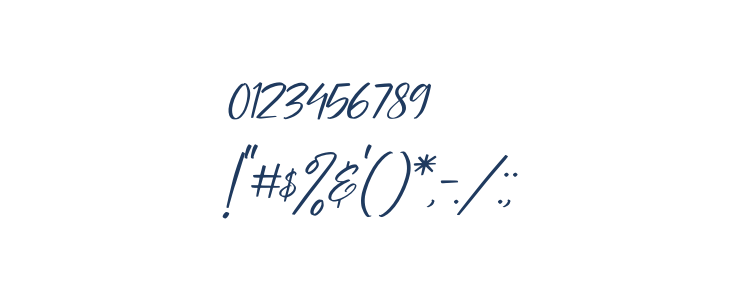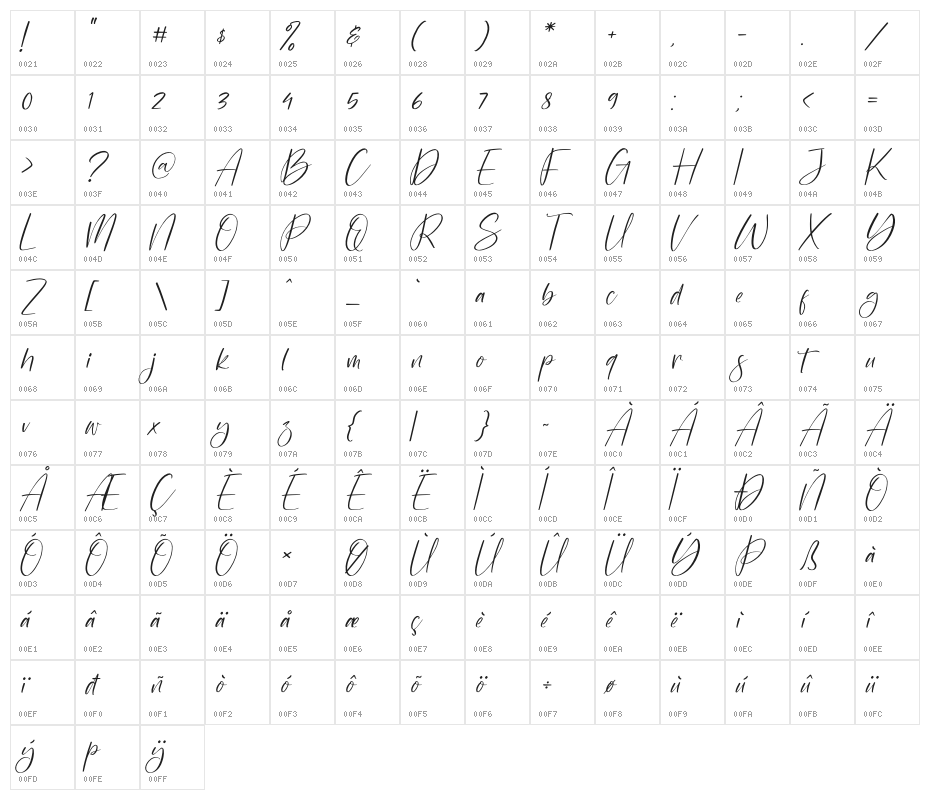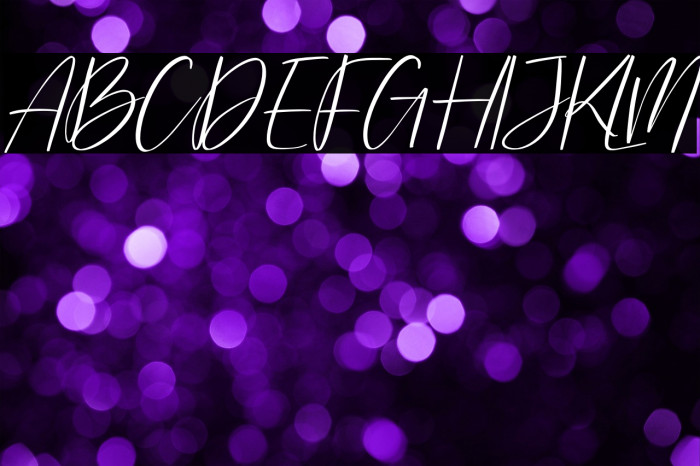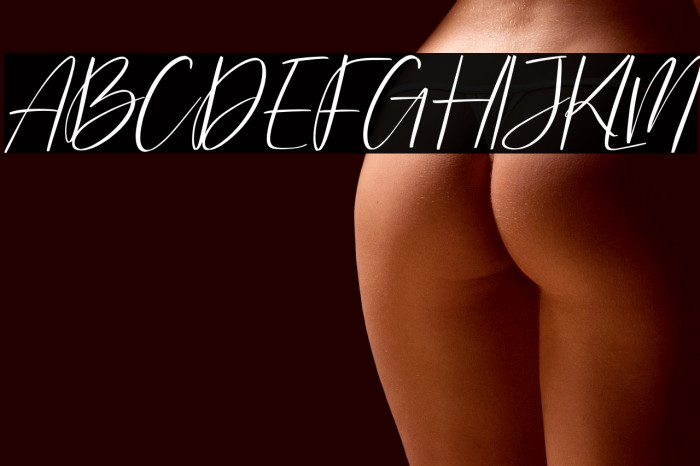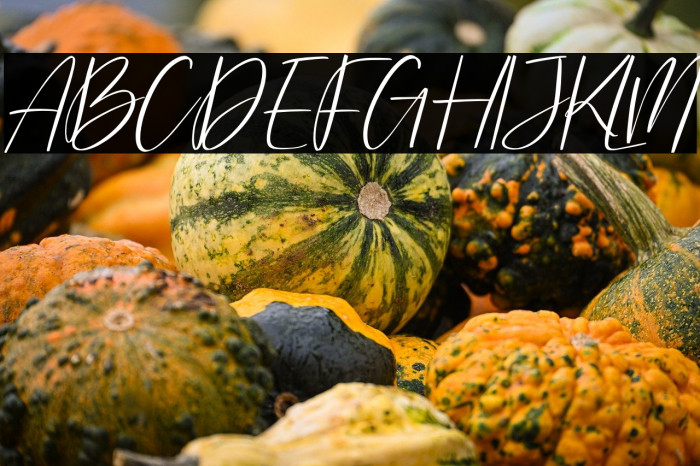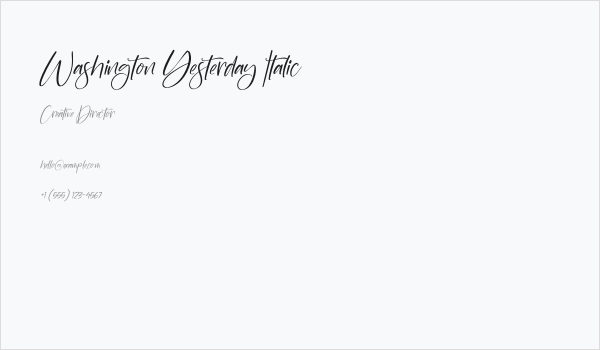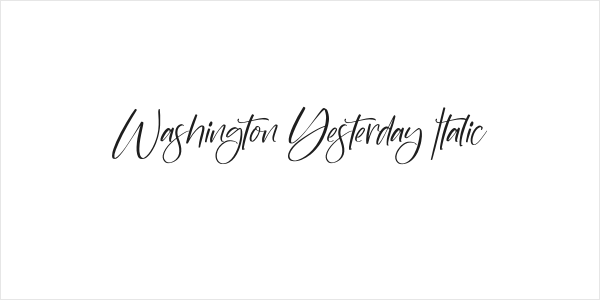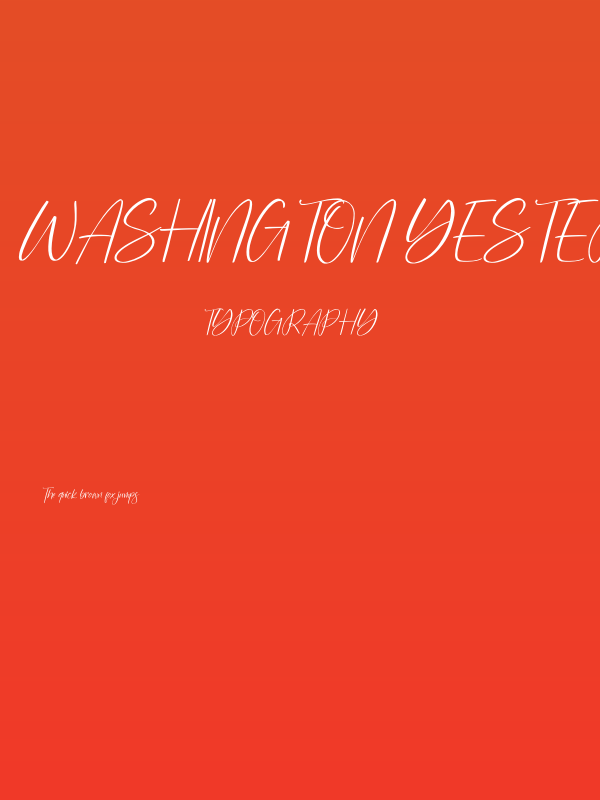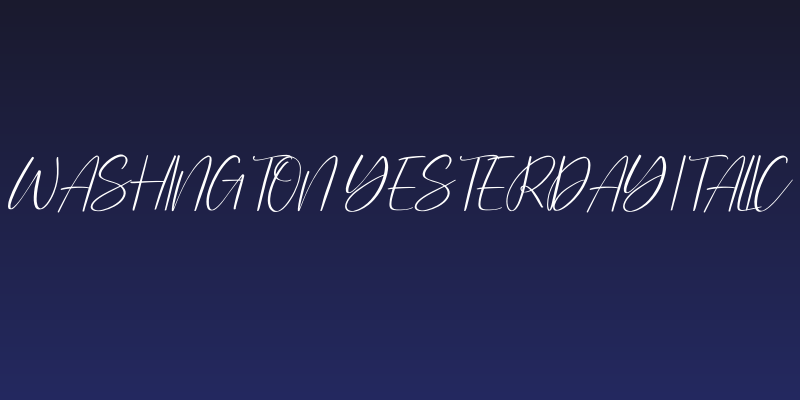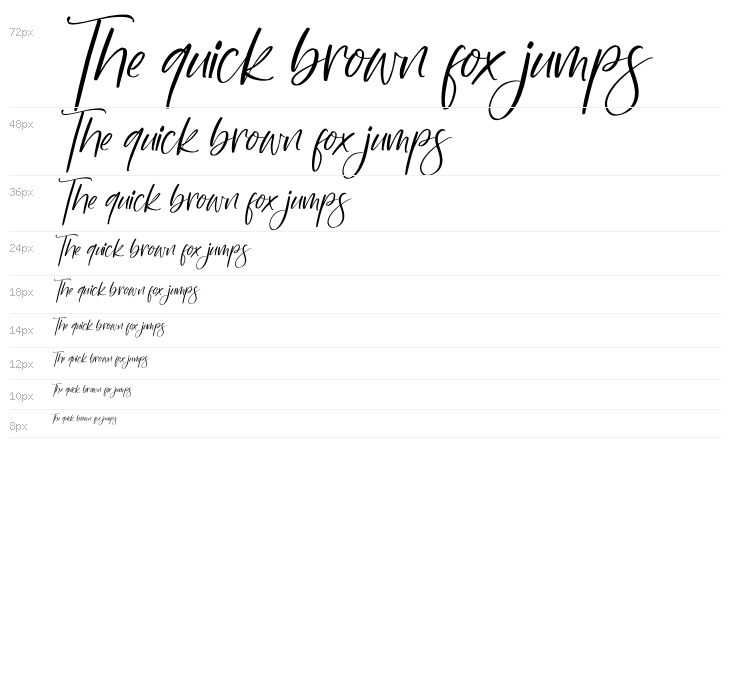
Washington Yesterday Italic Font
Washington Yesterday Italic Description
This font features an elegant and flowing script style that exudes sophistication and charm. The letters are crafted with a delicate balance of thin and thick strokes, creating a dynamic and graceful appearance. The uppercase letters are tall and slender, with a slight slant that adds to the fluidity of the design. The lowercase letters are equally graceful, with smooth curves and loops that enhance the overall aesthetic. The numerals and special characters maintain the same elegant style, ensuring consistency throughout. This font is perfect for projects that require a touch of elegance and refinement.
| Proposed Projects | Ideal for wedding invitations, elegant branding, high-end product packaging, and sophisticated editorial design. |